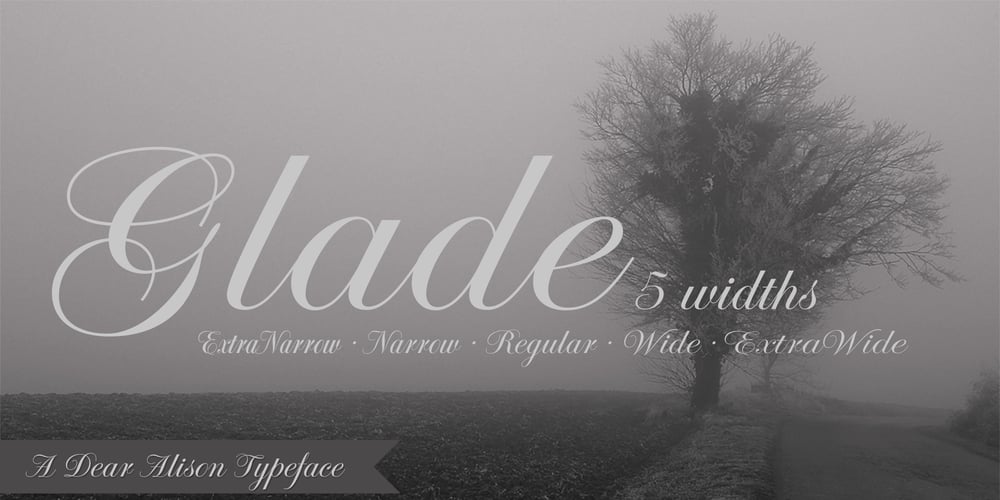
Glade Font Family was designed by Alison Argento and published by Dear Alison. Glade contains 5 styles and family package options. My latest typeface is a formal, copperplate script named Glade. Beginning as a project for a client who wanted several widths of a formal script style, the project never saw fruition. However, it did get me excited about the idea of a width family of steel nib scripts, ranging from extra narrow to extra wide, and the result is the Glade family. To give Glade a minor modern makeover from the original intent, the lowercase has been scaled up, and the Capitals scaled down for a more friendly personality. The character set has been expanded, and OpenType support has been added for unlimited fractions, ordinals, superiors and inferiors. So if you have the need for a formal connecting script, but are short on space, try Glade Narrow or Glade Extra Narrow. If space is not an issue, then the Regular, Wide or the generously gracious Extra Wide should do nicely. And if you get the whole family, well then you are set for anything that comes your way.